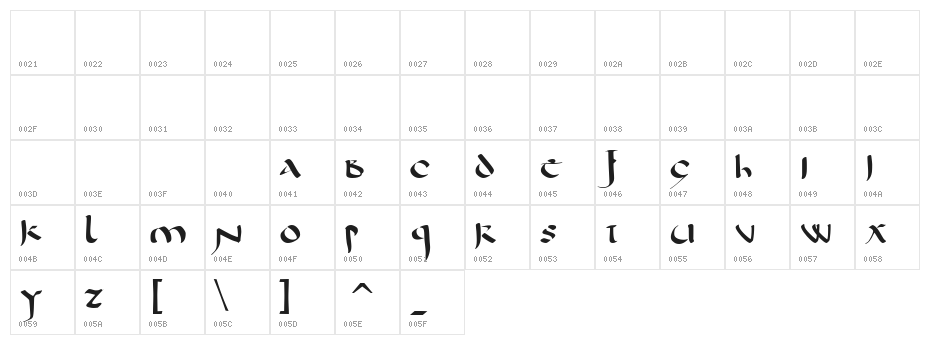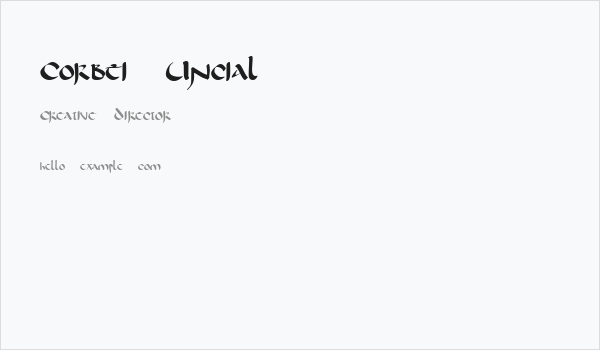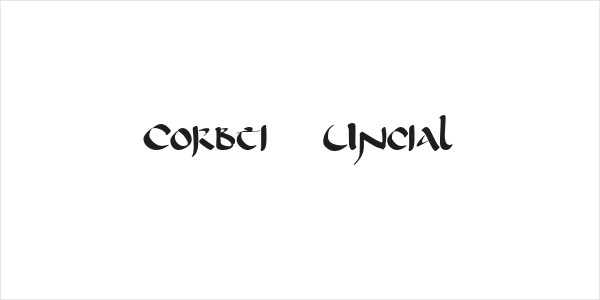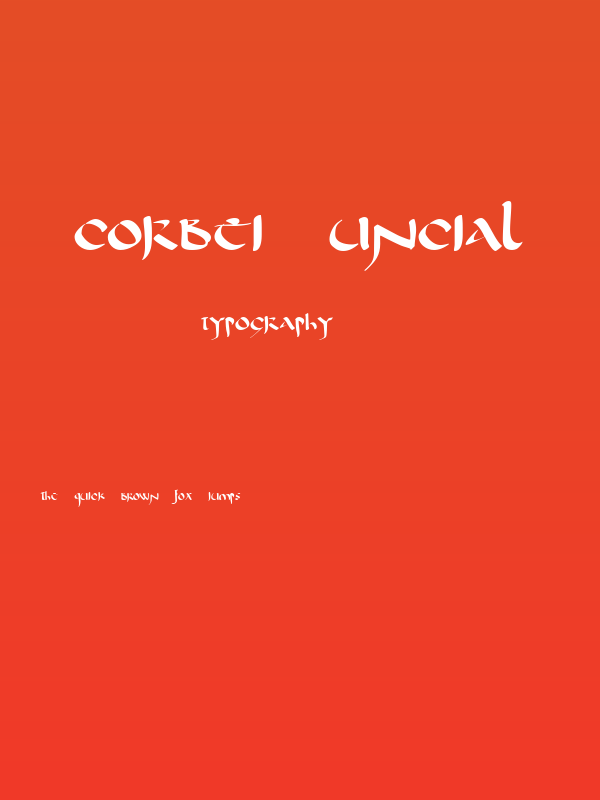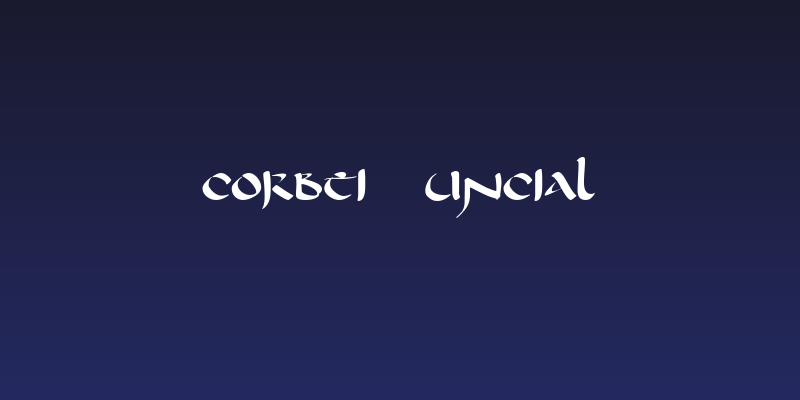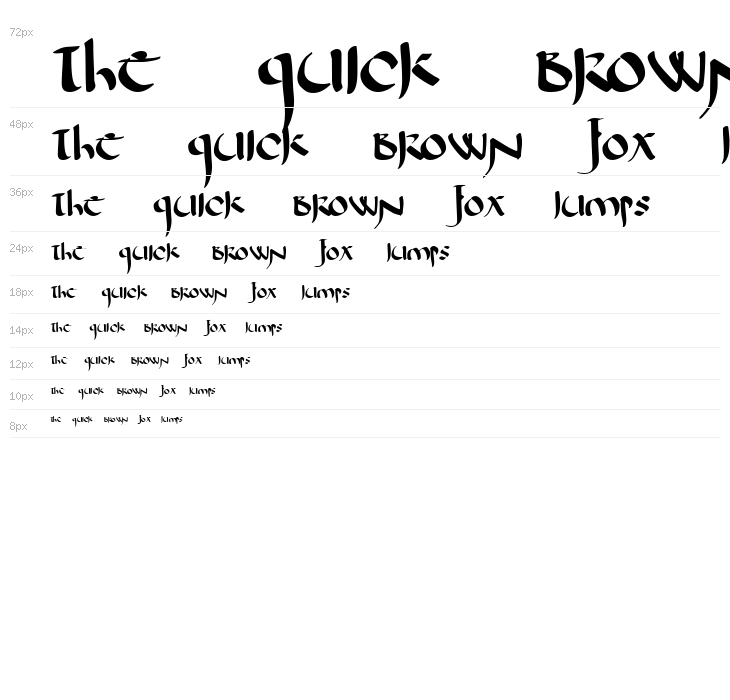
Corbei Uncial Font
Corbei Uncial Description
This font features a distinctively medieval and calligraphic style, reminiscent of ancient manuscripts. The characters are bold and have a strong presence, with sharp, angular strokes and a flowing, cursive quality. The uppercase letters are particularly ornate, with elaborate flourishes and a sense of grandeur. The lowercase letters maintain the same stylistic elements, ensuring consistency throughout the typeface. The numbers and special characters are designed to match the overall aesthetic, making this font suitable for projects that require a historical or fantasy theme.
| Proposed Projects | Ideal for historical documents, fantasy-themed designs, book covers, and decorative invitations. |